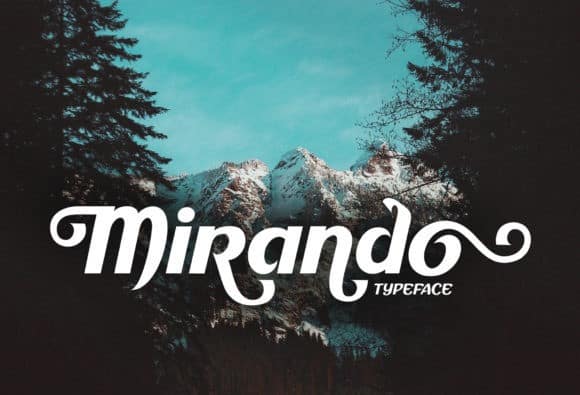
Mirando Display Font
Mirando Display Font is a display typeface family for “Caos Sagrado” specially designed for informative fanzine and magazines. It’s designed and shared by Cove703. This font is a minimal, yet elegant display font.
Suitable to a wide variety of designs due to its neat and simple style, Mirando has the potential to become your favorite go-to font, no matter the occasion!